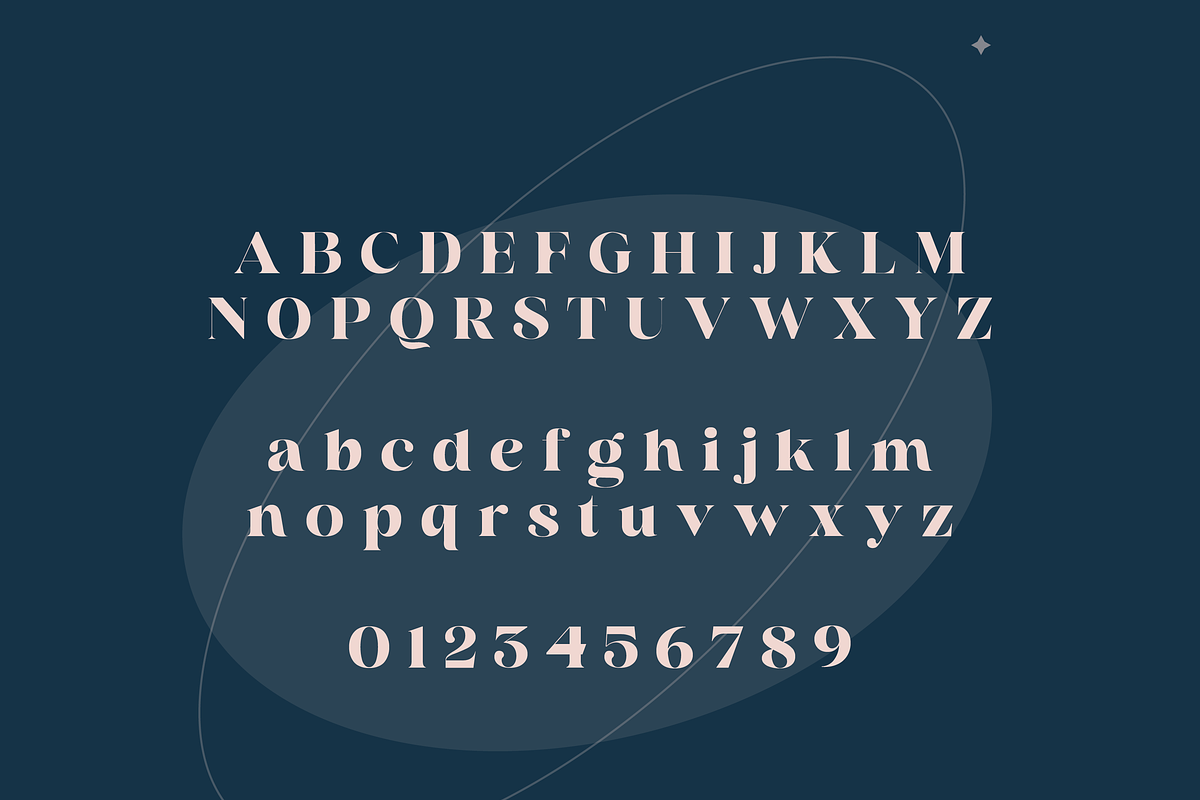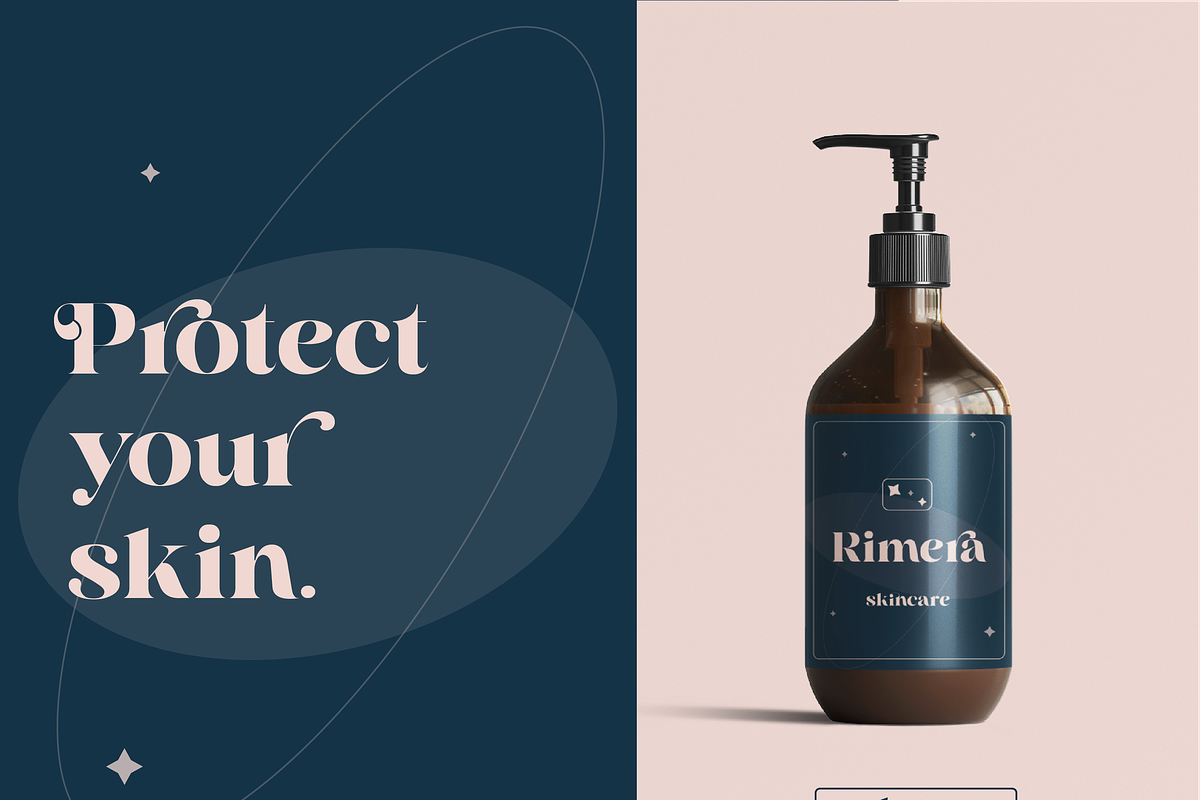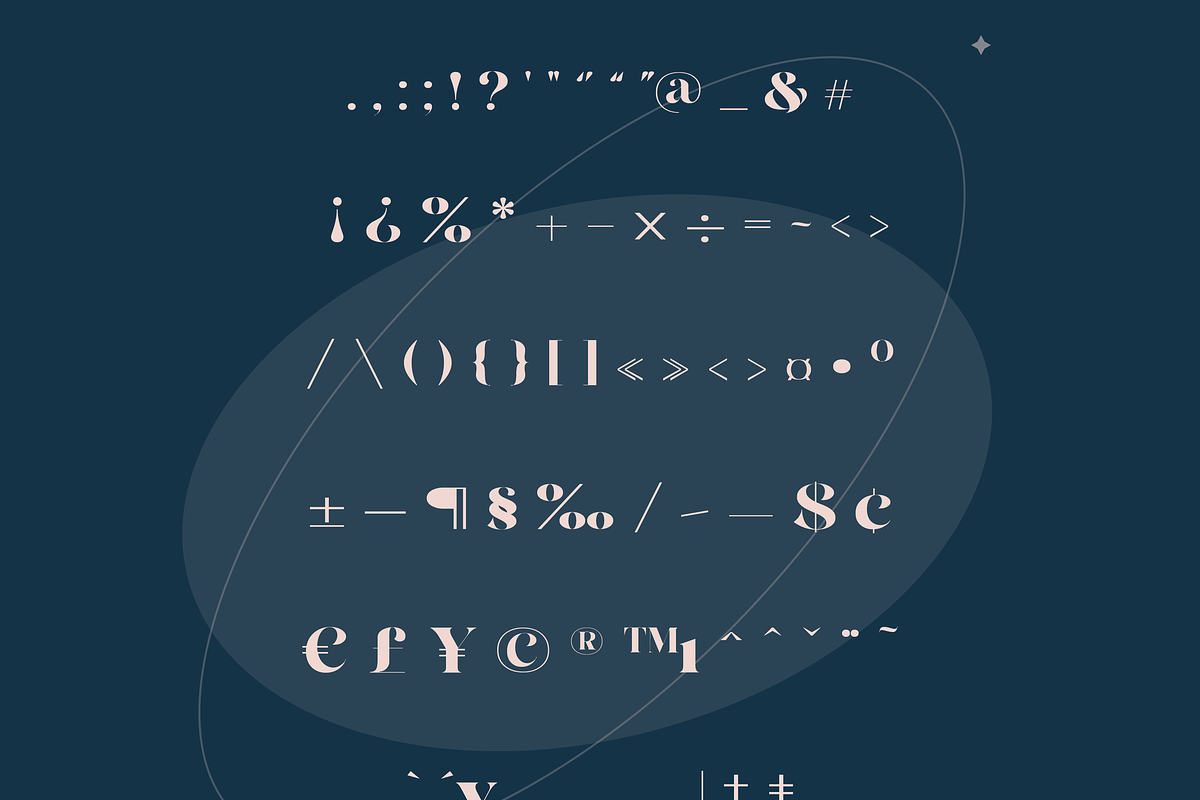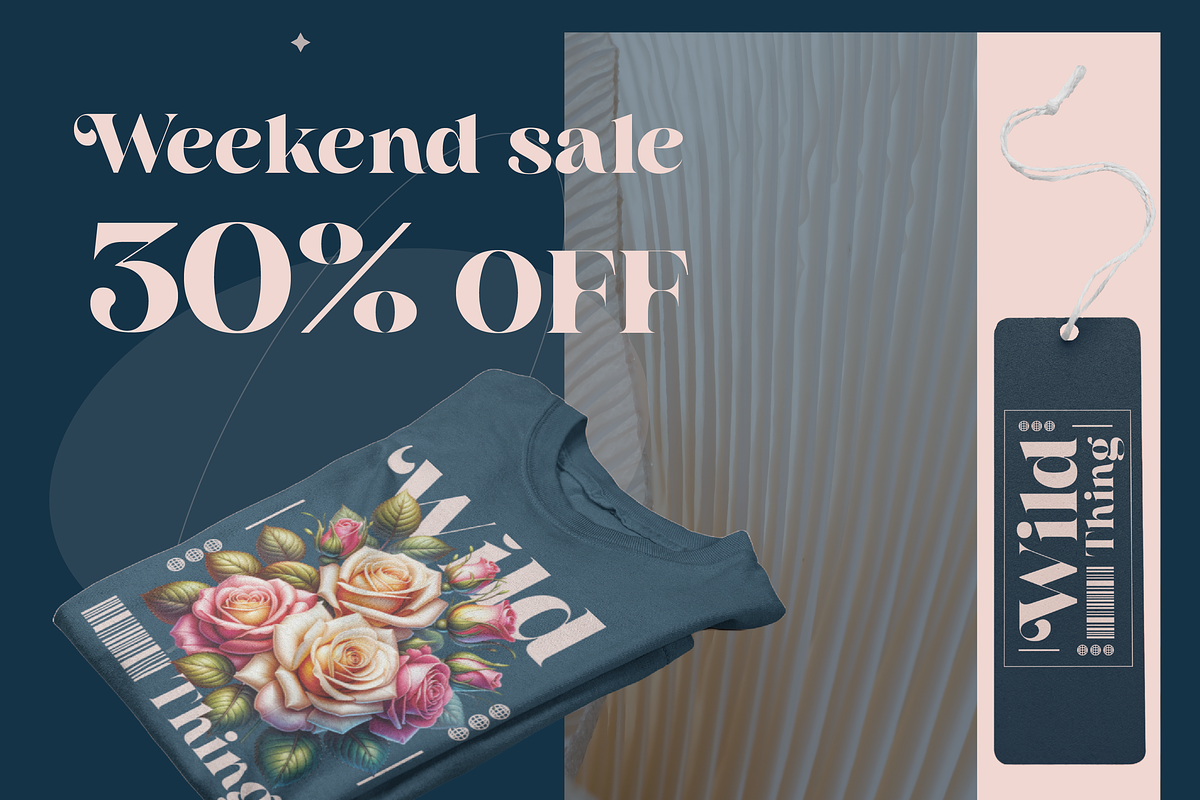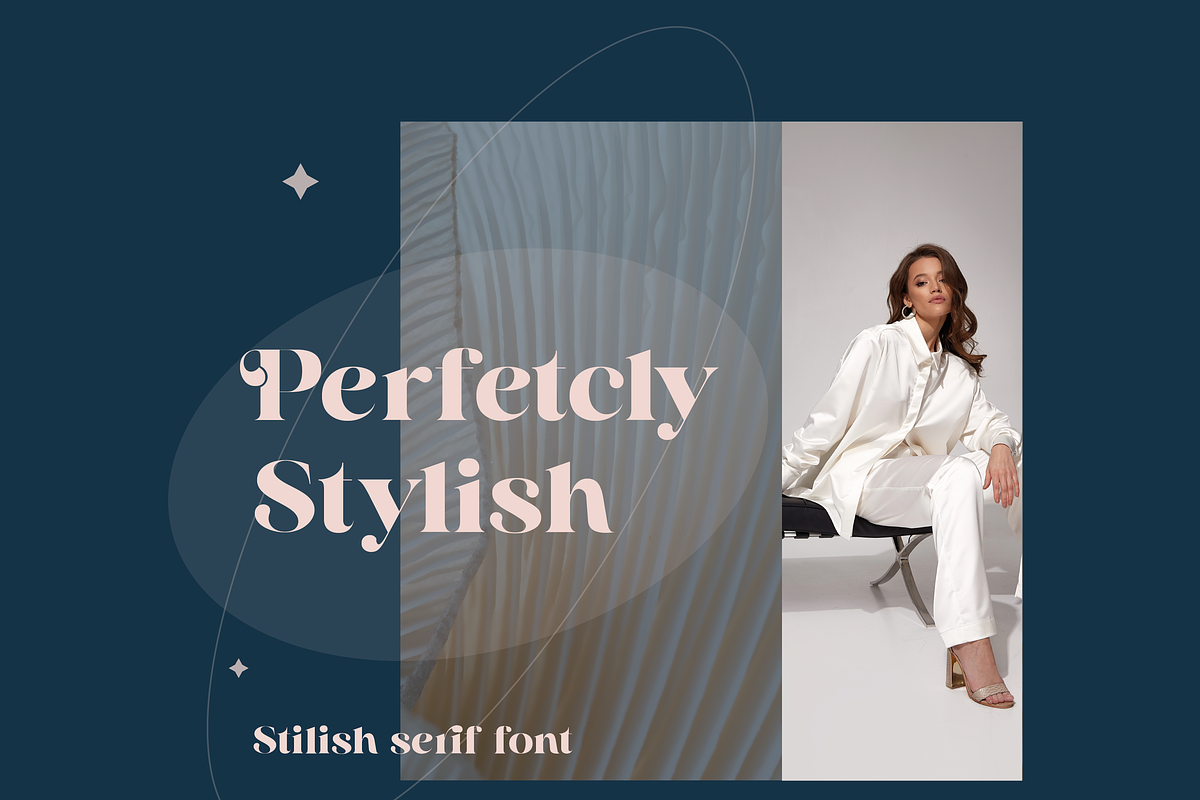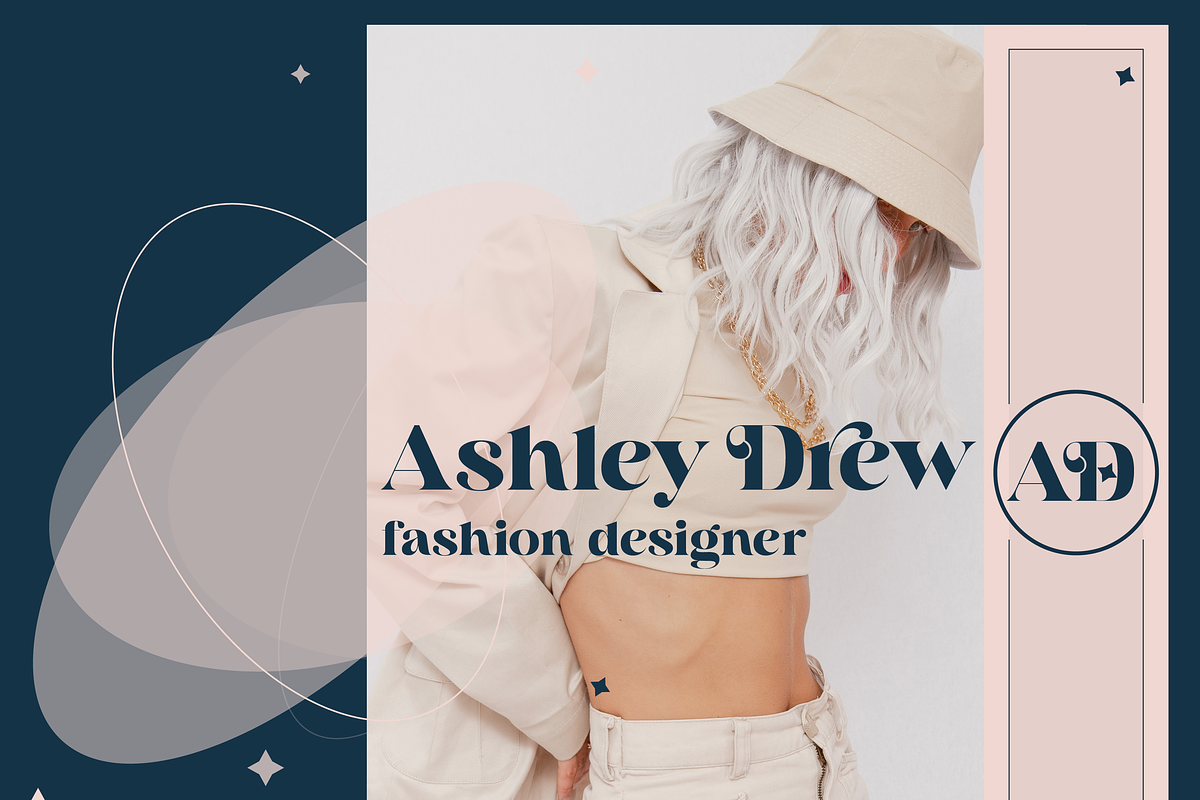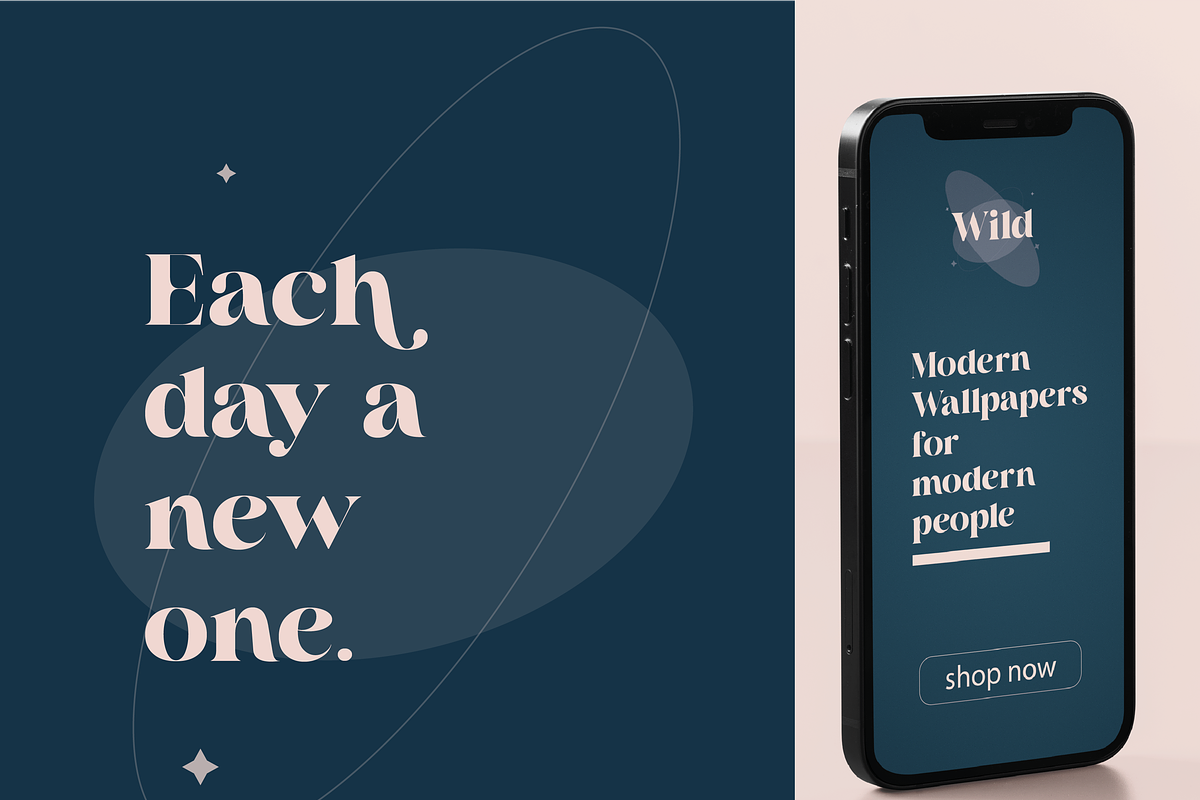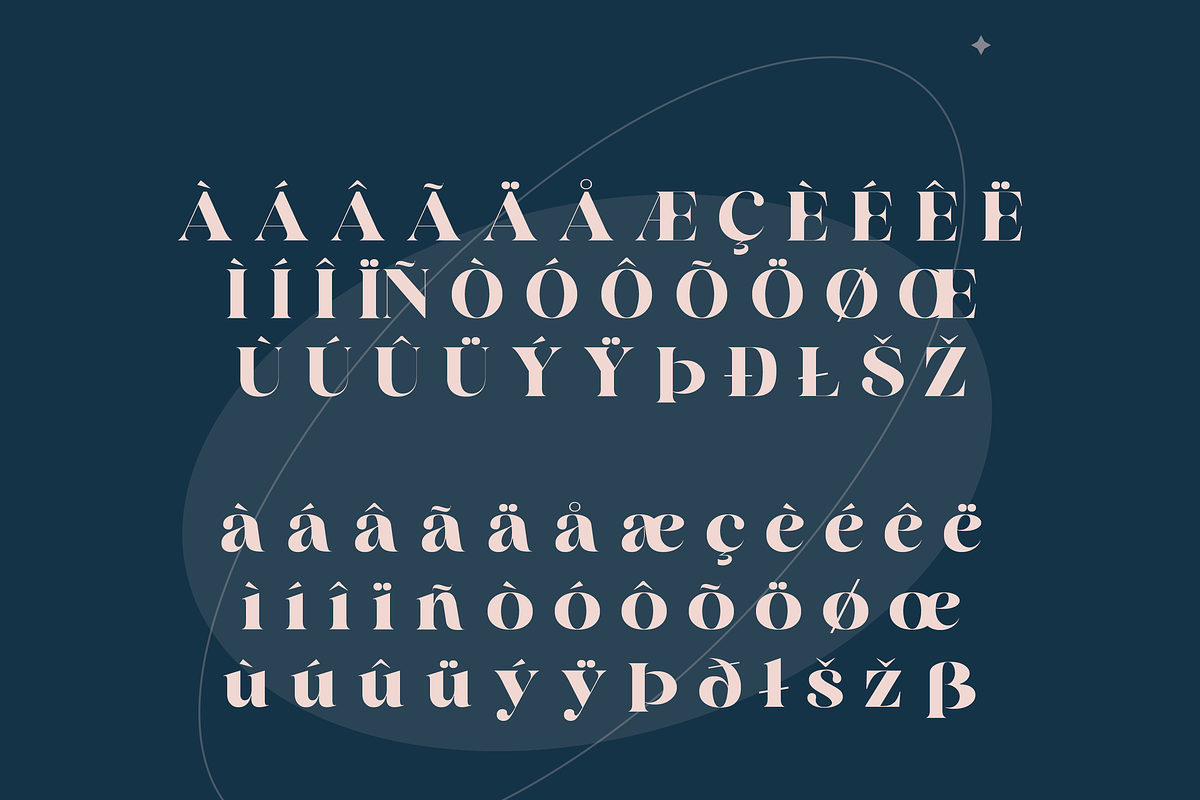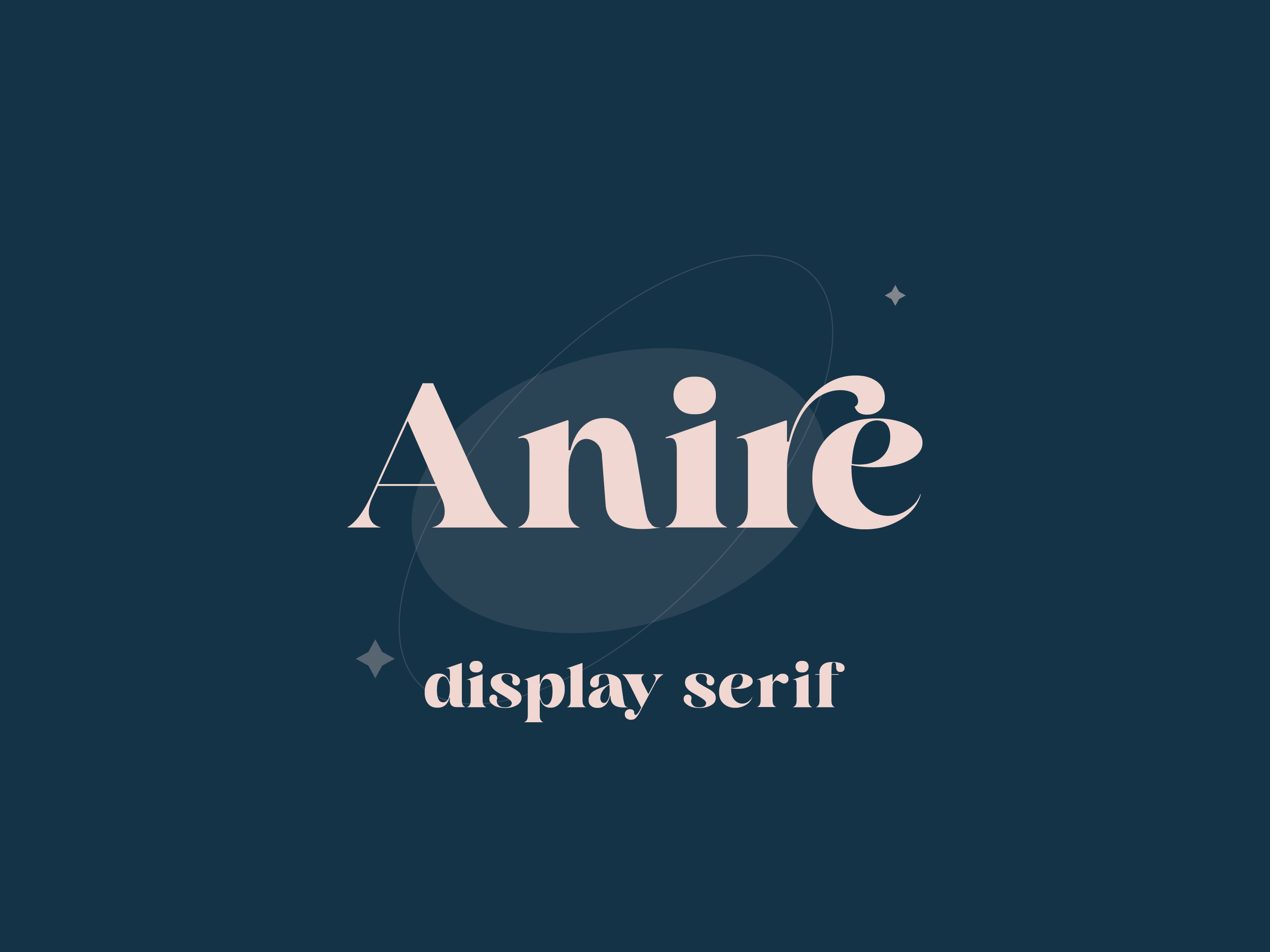
Anire Serif Font
Anire – Retro-Inspired Fashionable Serif Font
Anire is a retro-styled and trendy serif font designed to bring elegance and character to your projects. Its timeless design offers endless possibilities, making it ideal for a variety of design applications. Whether you're working on advertising, branding, logotypes, packaging, titles, headlines, or editorial design, Anire shines in both large formats and detailed compositions. .